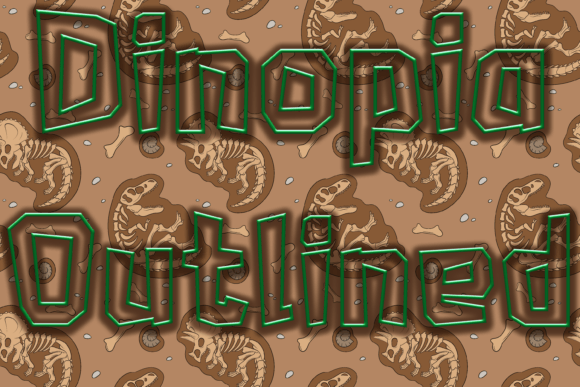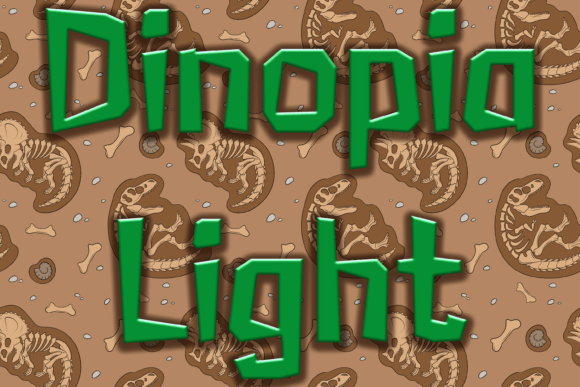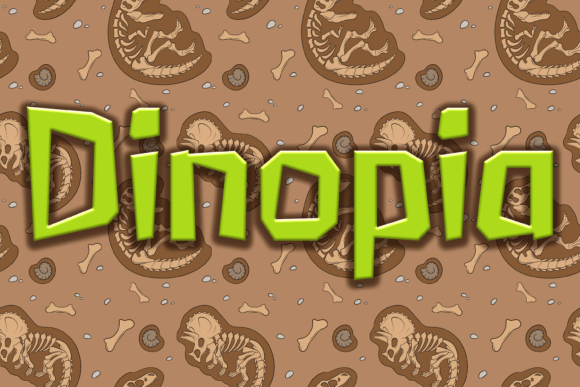
Discover the Fun and Playful Dinopia Font: A Perfect Choice for Creative Designs
In the world of typography, fonts play a crucial role in bringing creativity and life to designs. Among the numerous fonts available, Dinopia Font stands out for its unique and playful style, making it an excellent choice for designers and crafters. In this article, we’ll explore the features and benefits of Dinopia Font, and how it can elevate your design projects.
What is Dinopia Font?
Dinopia Font is a fun and playful sans serif display font that has gained popularity among designers and crafters. Its interesting and unique style makes it suitable for a large variety of design ideas. Whether you’re working on a branding project, creating social media graphics, or designing a website, Dinopia Font is an excellent choice to add a touch of playfulness and creativity.
Key Features of Dinopia Font
- Unique and Playful Style: Dinopia Font boasts a distinctive and playful style that sets it apart from other fonts. Its sans serif design makes it clean and modern, while its unique features add a touch of whimsy.
- Versatility: Dinopia Font is highly versatile and can be used for a wide range of design projects, from branding and advertising to social media graphics and web design.
- Easy to Read: Despite its playful style, Dinopia Font is easy to read, making it perfect for headlines, titles, and short paragraphs.
- Customizable: Dinopia Font comes with a range of customization options, allowing you to adjust the font to suit your design needs.
Benefits of Using Dinopia Font
So, why choose Dinopia Font for your design projects? Here are some benefits of using this fantastic font:
- Adds Creativity to Your Designs: Dinopia Font’s playful style adds a touch of creativity and whimsy to your designs, making them stand out from the crowd.
- Enhances Brand Identity: With Dinopia Font, you can create a unique brand identity that reflects your brand’s personality and values.
- Perfect for Social Media Graphics: Dinopia Font is ideal for creating social media graphics, such as Facebook posts, Instagram stories, and Twitter headers.
- Great for Web Design: Dinopia Font is also suitable for web design, adding a touch of playfulness and creativity to your website.
How to Use Dinopia Font
Using Dinopia Font is easy and straightforward. Here are some tips to get you started:
- Pair it with Other Fonts: Dinopia Font pairs well with other fonts, so feel free to experiment with different combinations to create a unique look.
- Adjust the Font Size: Dinopia Font is best used in larger font sizes, so adjust the font size to suit your design needs.
- Experiment with Colors: Dinopia Font looks great in a range of colors, so don’t be afraid to experiment with different colors to add some personality to your design.
In conclusion, Dinopia Font is a fun and playful sans serif display font that’s perfect for designers and crafters looking to add a touch of creativity and whimsy to their designs. With its unique style, versatility, and ease of use, Dinopia Font is an excellent choice for a wide range of design projects. So, why not give Dinopia Font a try and see how it can elevate your designs?